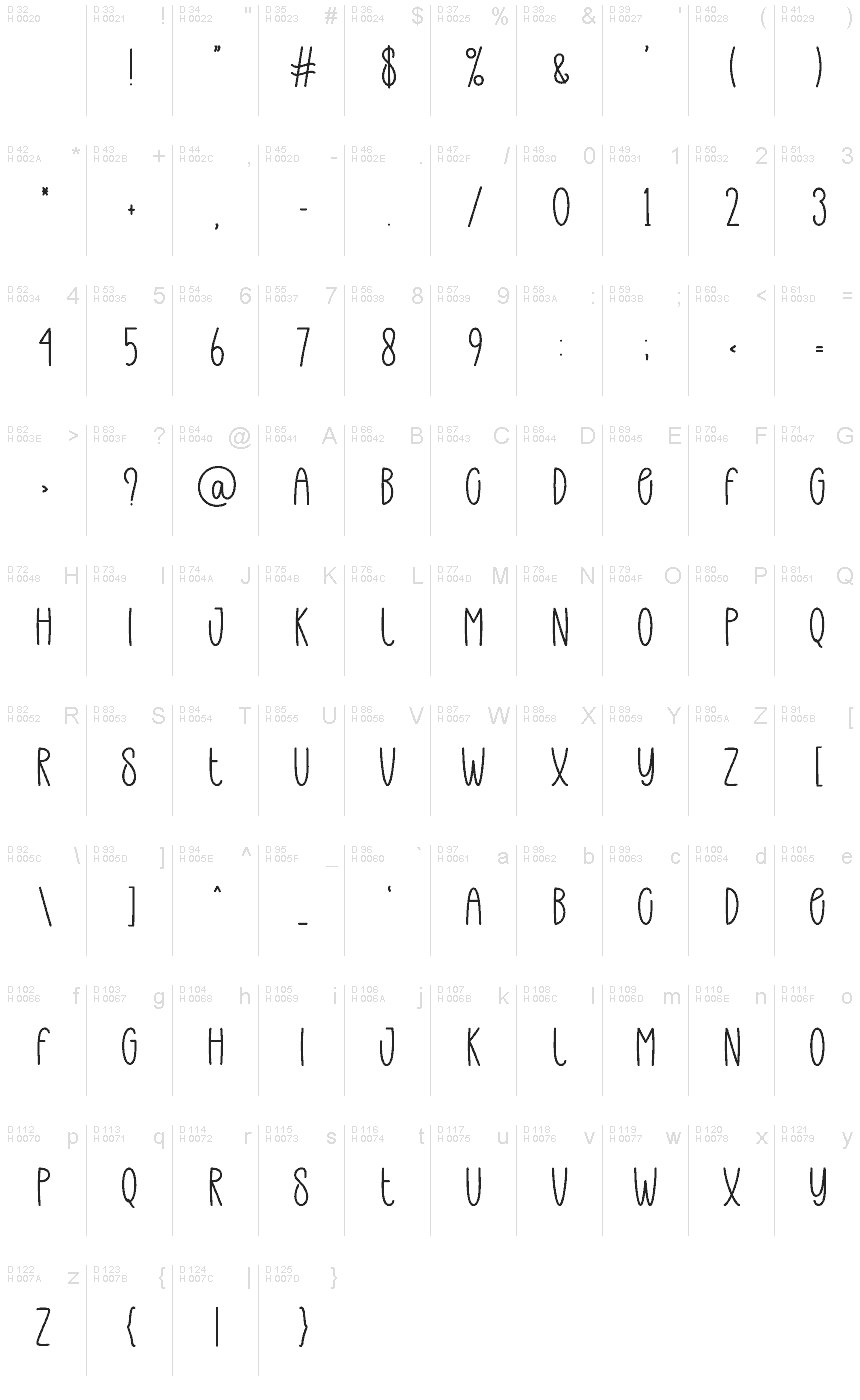
Thinner Quality
Thinner Quality font is a handwritten typeface from Andi Moz designed in a light weight and condensed width. Retro-inspired, elegant, yet quirky letters are shaped in an expressive visually interesting style that feels relaxed and friendly all at once. This free flowing font transforms any headline to extra-ordinary while effortlessly fitting within body paragraphs.
Use Thinner Quality for creating greeting cards, designing invitations, typing quotes, wedding invitations and decor, or simply expressing yourself with a hand-crafted branding identity. The font also work in book covers, advertising posters, social media marketing posts/ads or other typography rich designs.